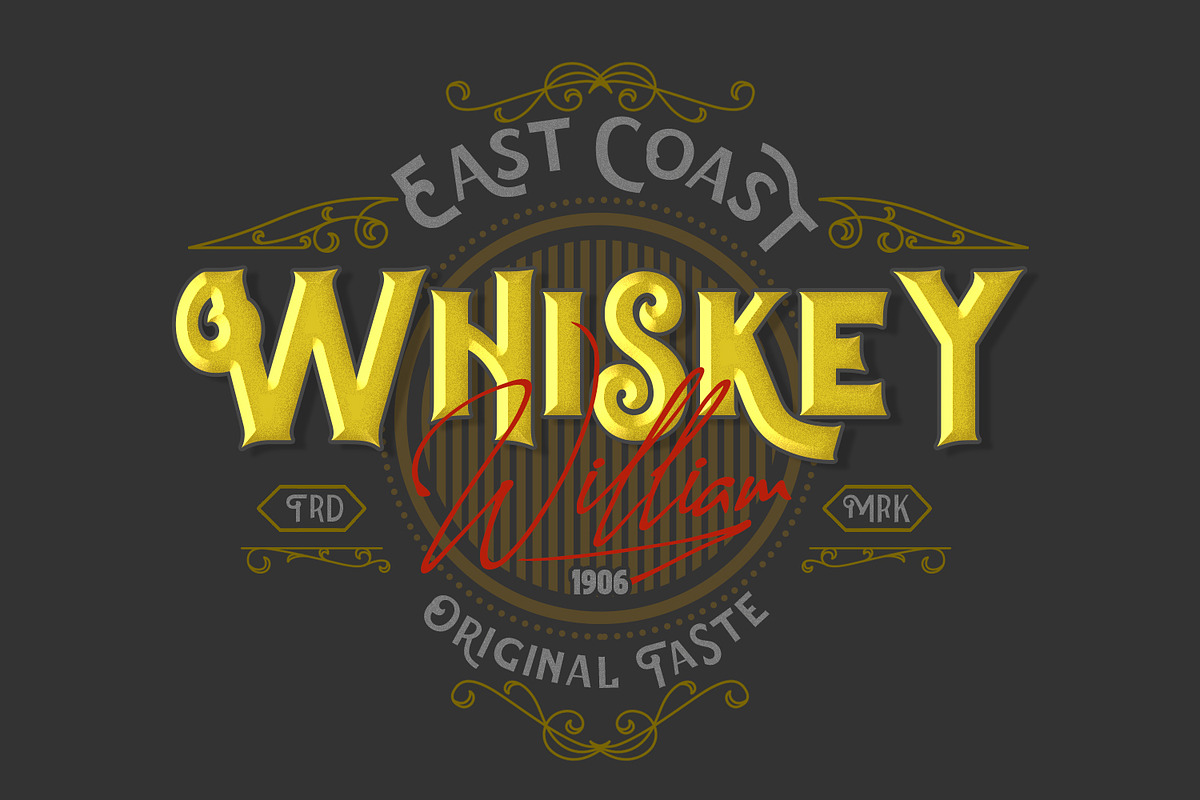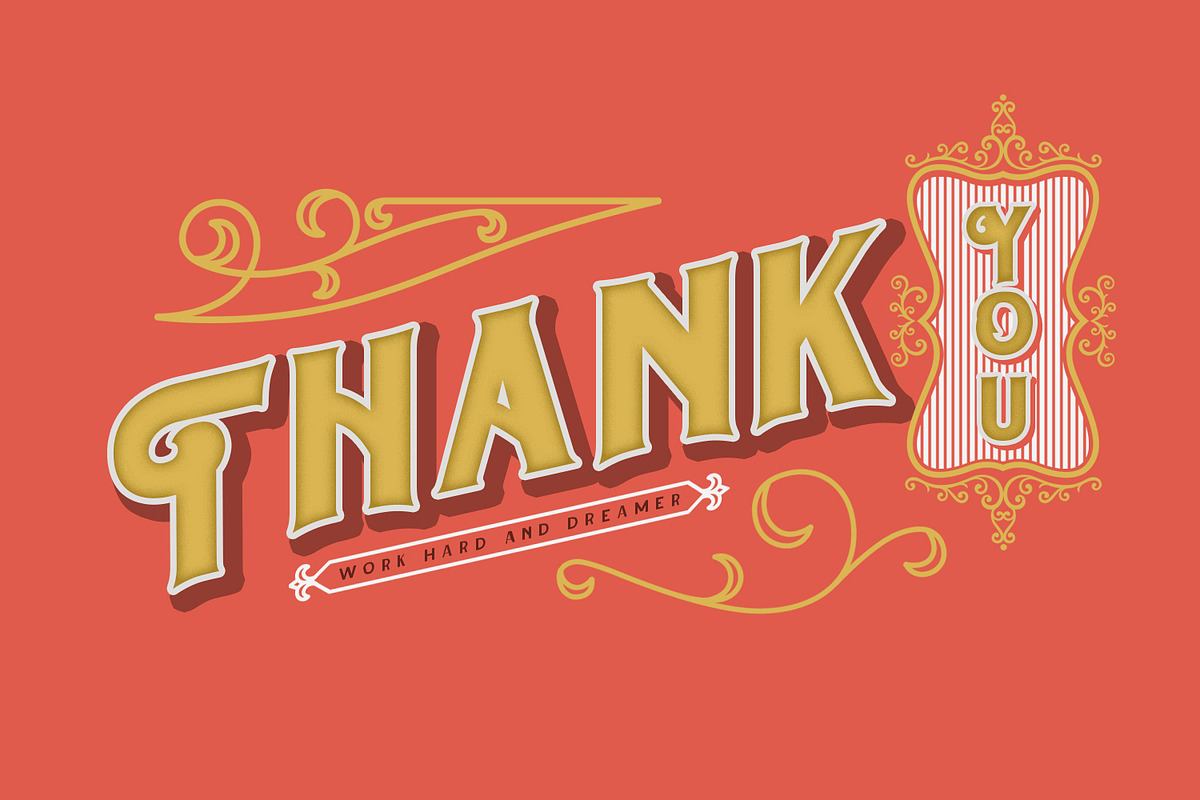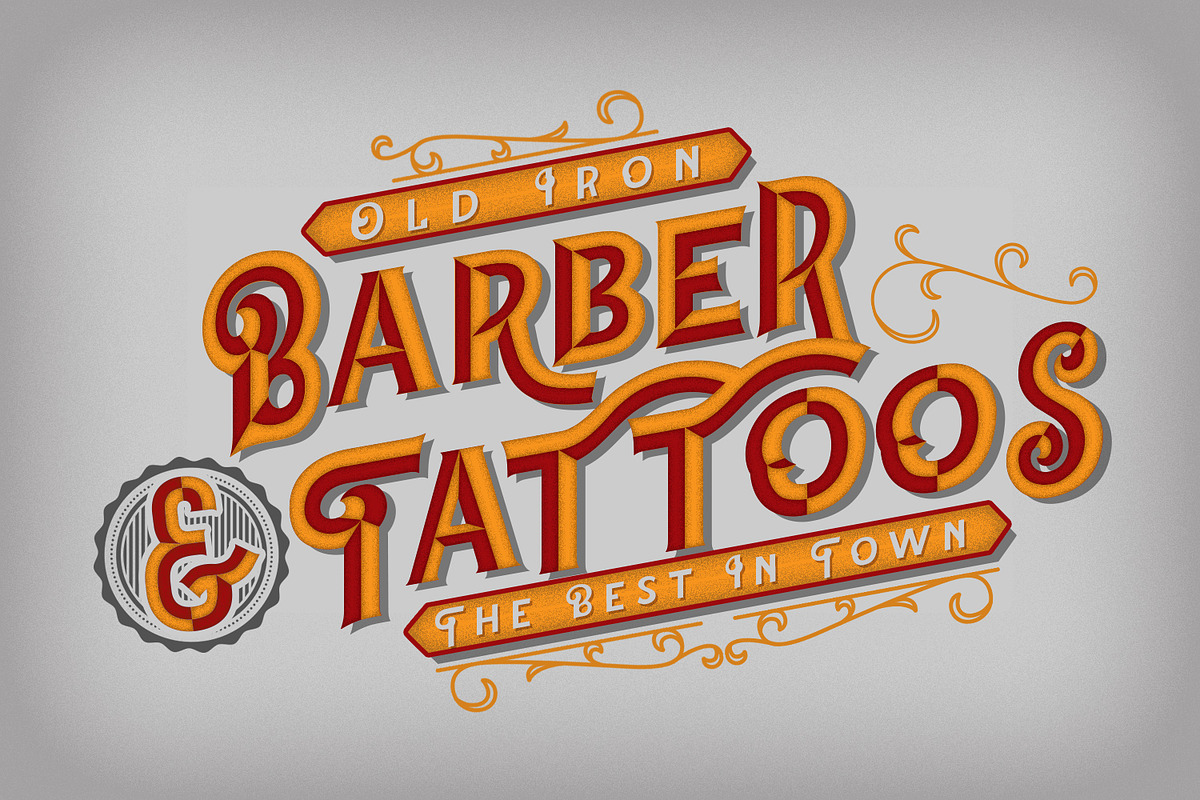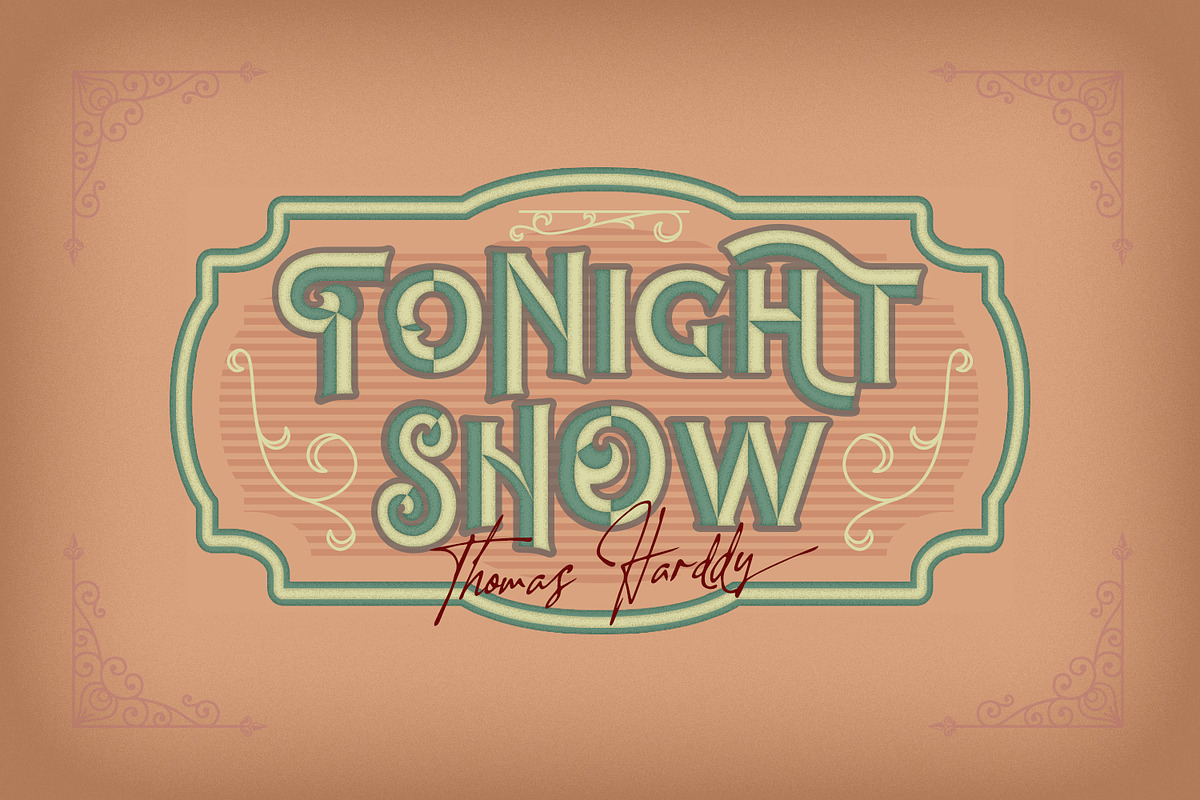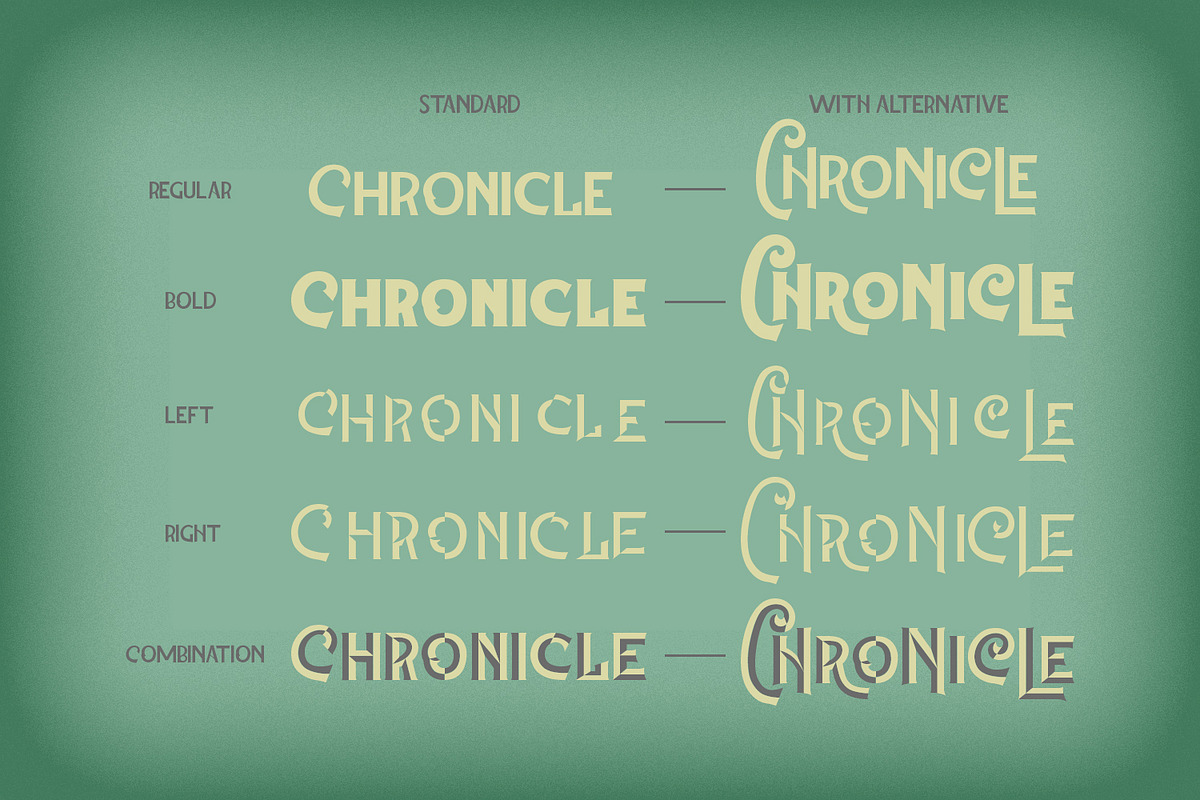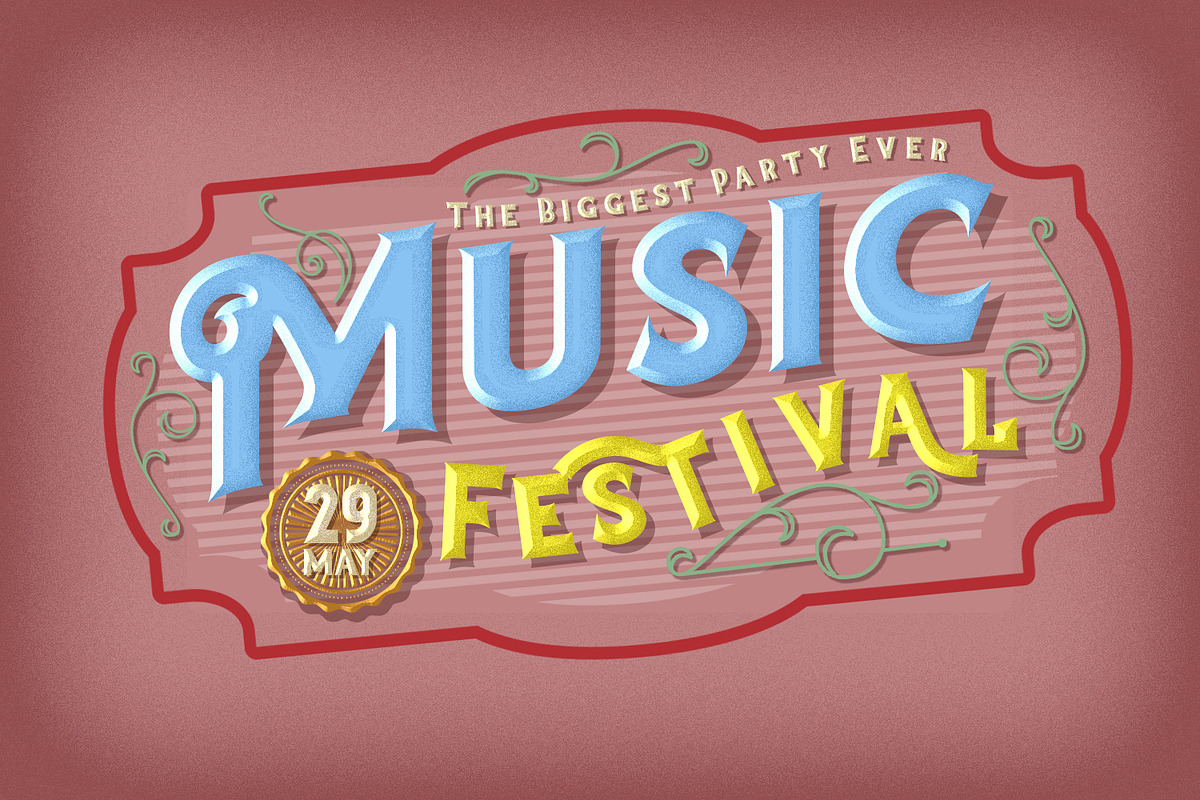
The Chronicle - Blackletter Typeface
The Chronicle is Layered Font Regular and Bold. The Chronicle perfect for poster design, book covers, merchandise, fashion campaigns, newsletters, branding, advertising, magazines, greeting cards, album covers, and quote designs and more.
With Opentype features you can applied to logos, product, display, clothing, quotes and many more. You can applied to all typography with mix and match pairs of letters to fit your own designs.